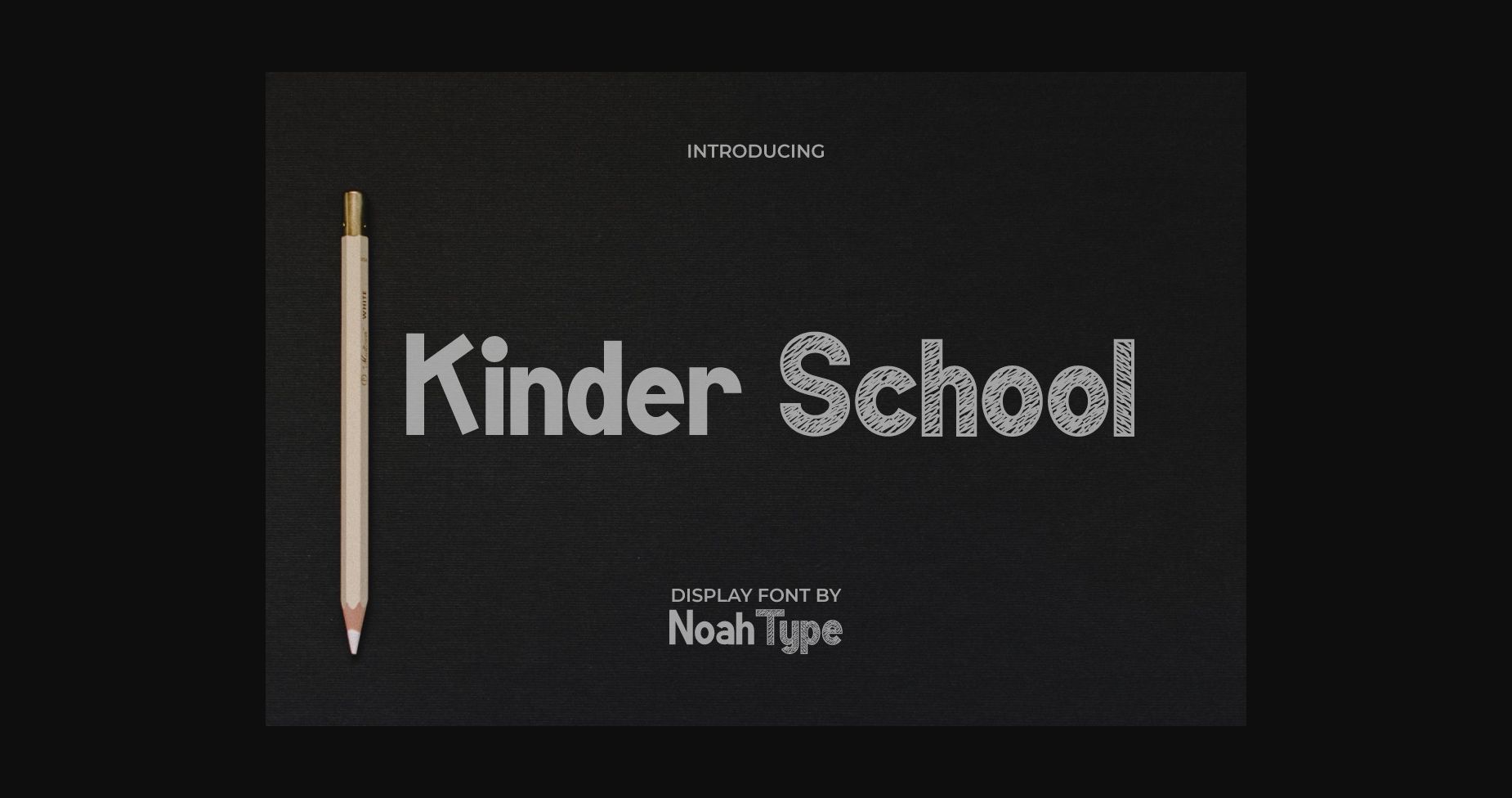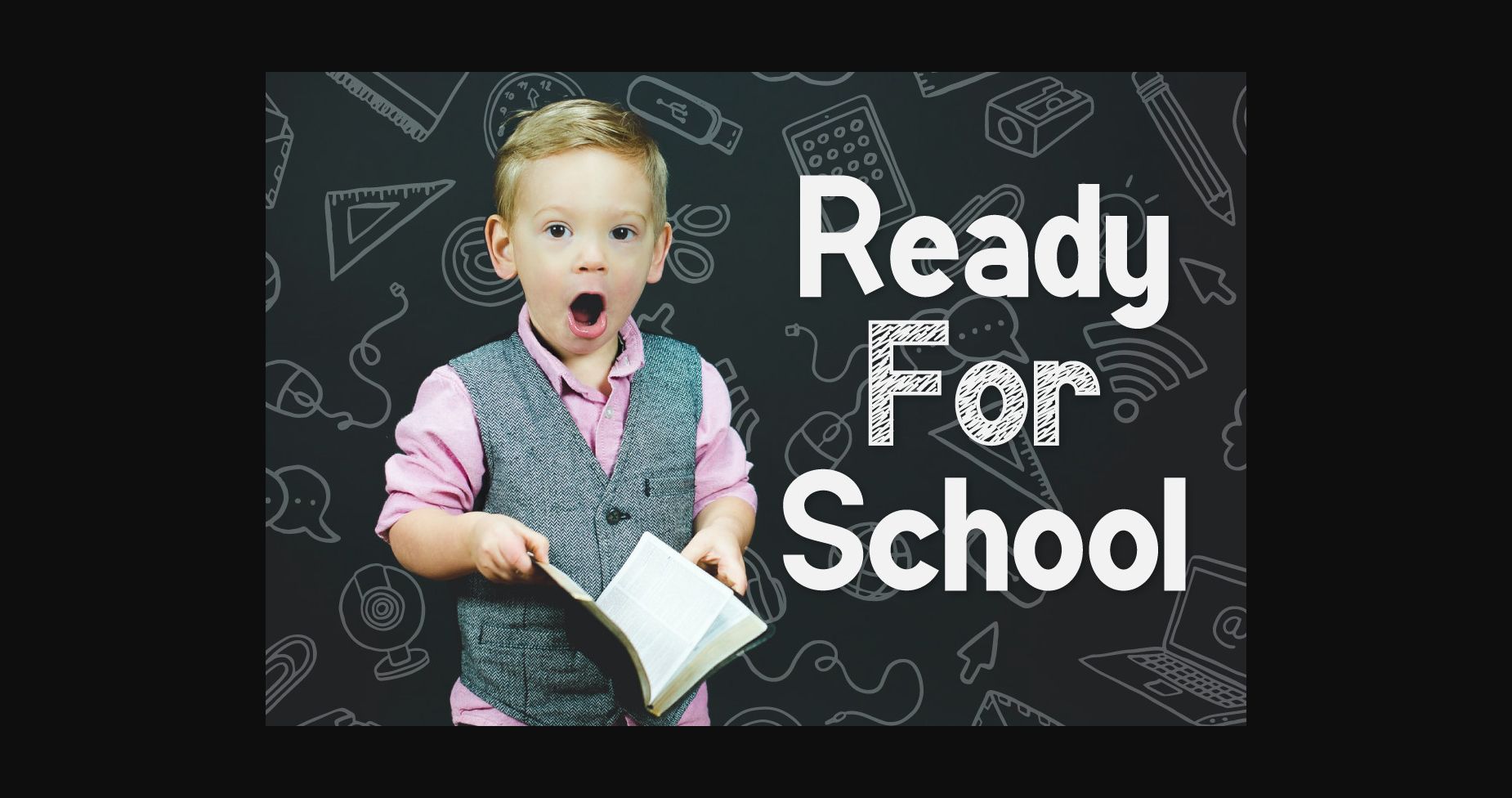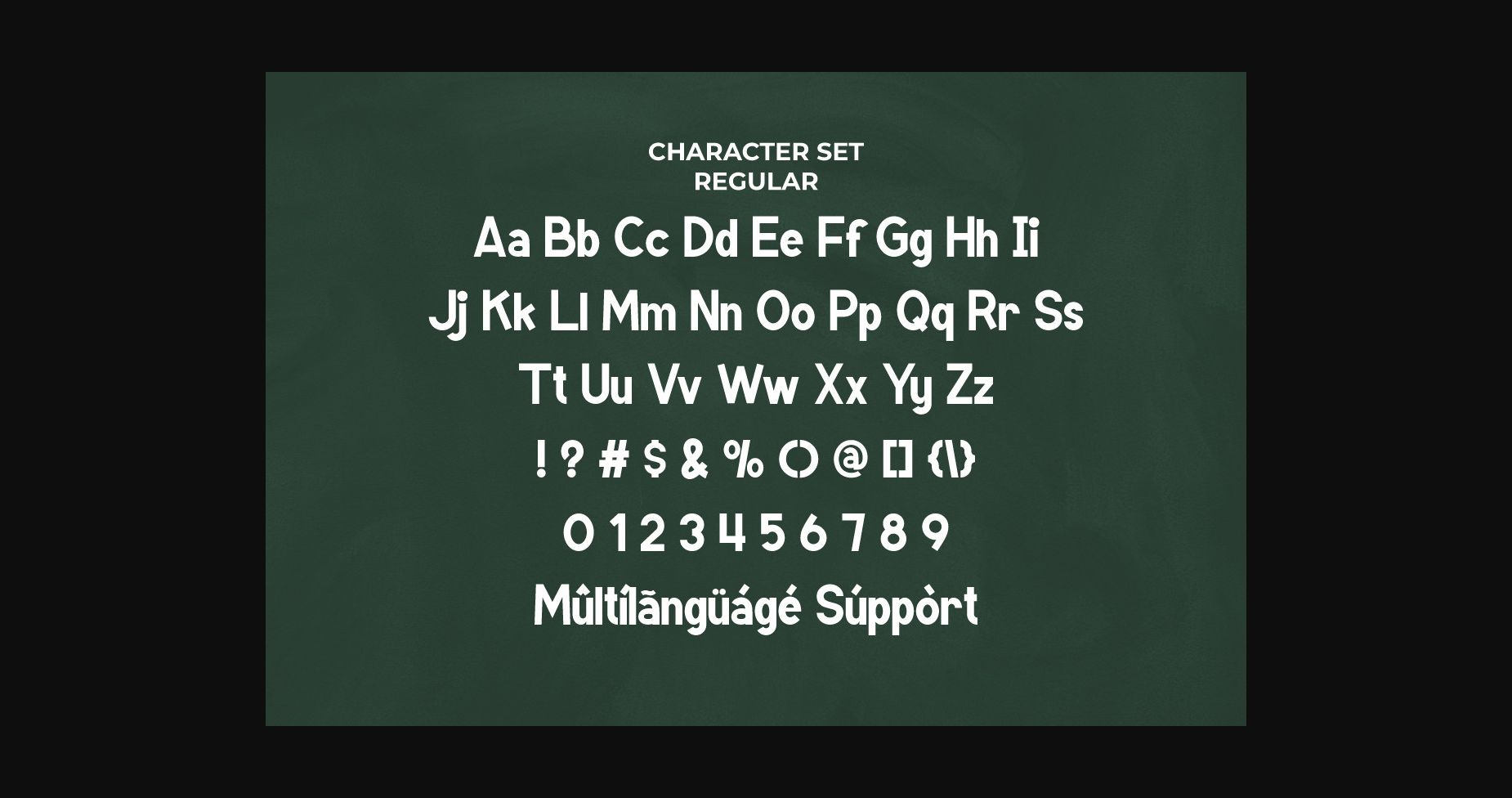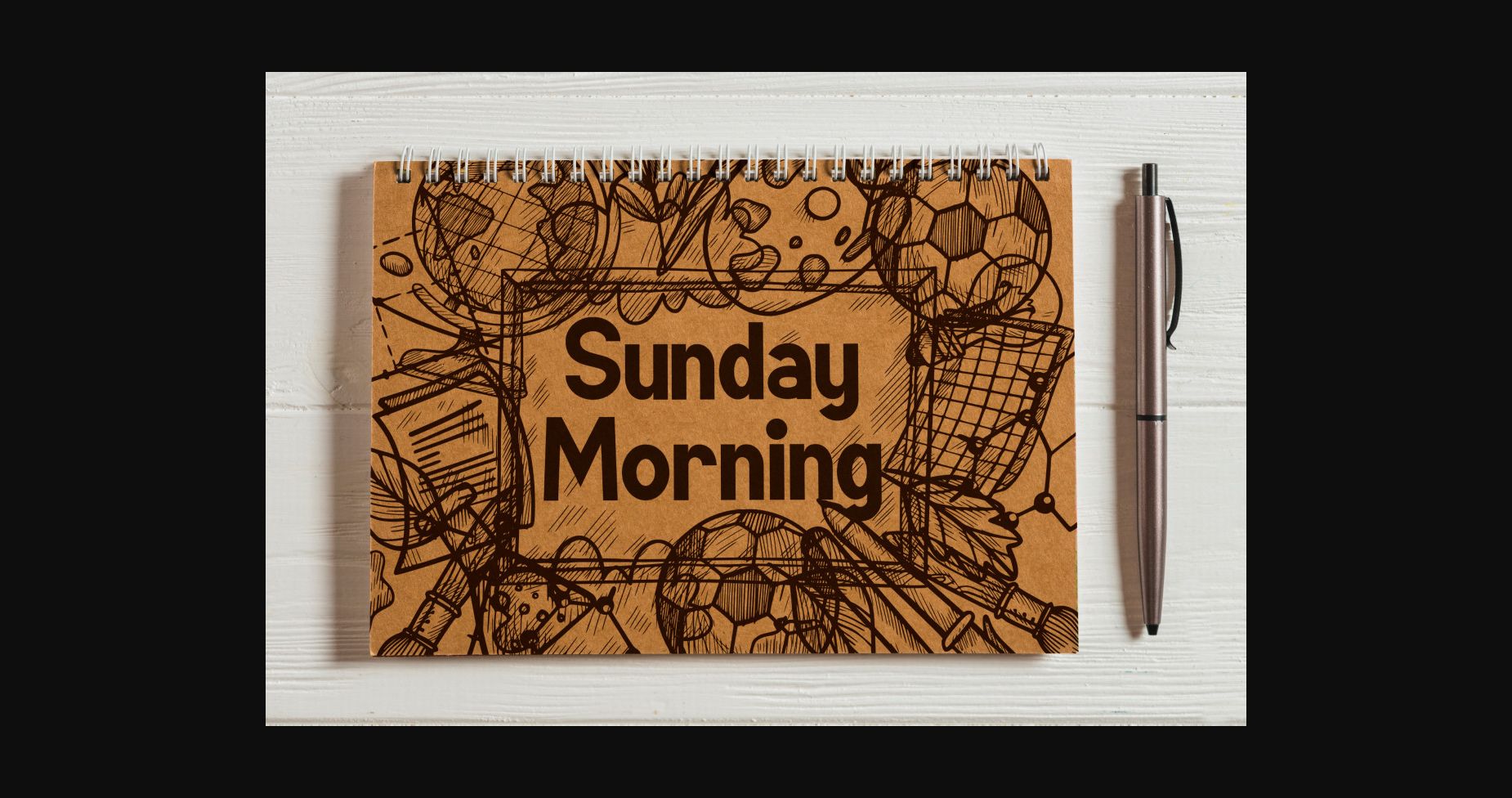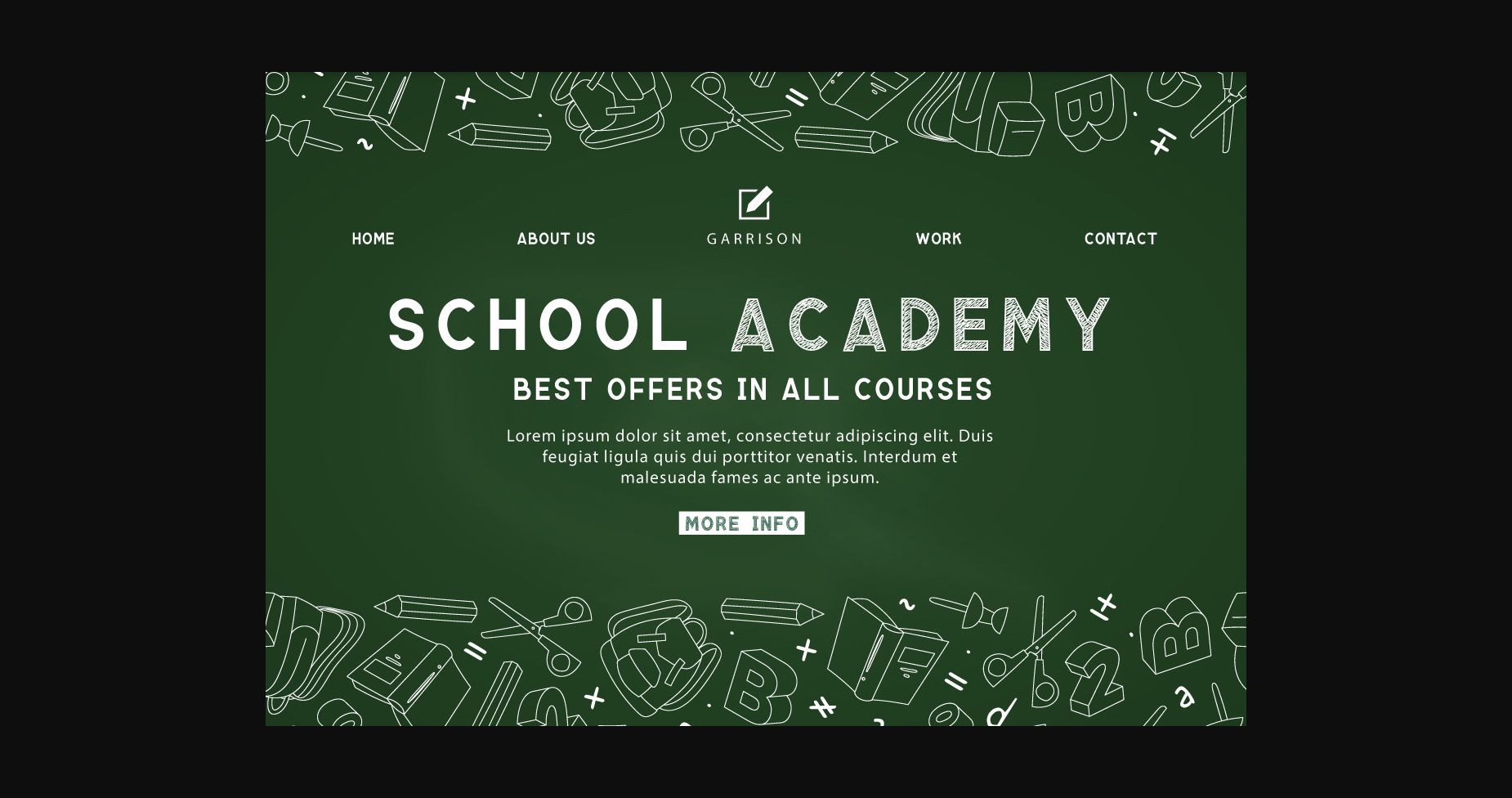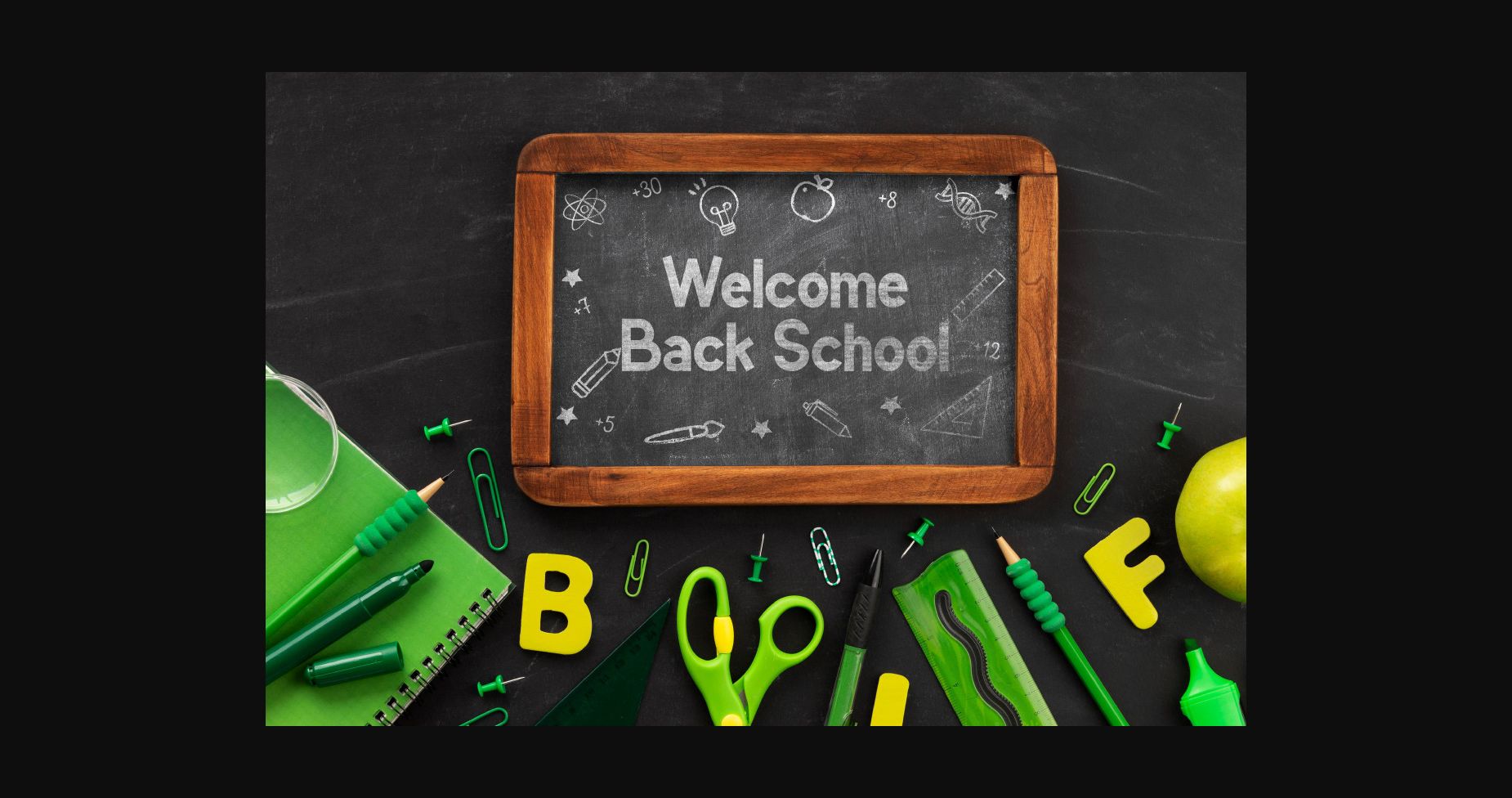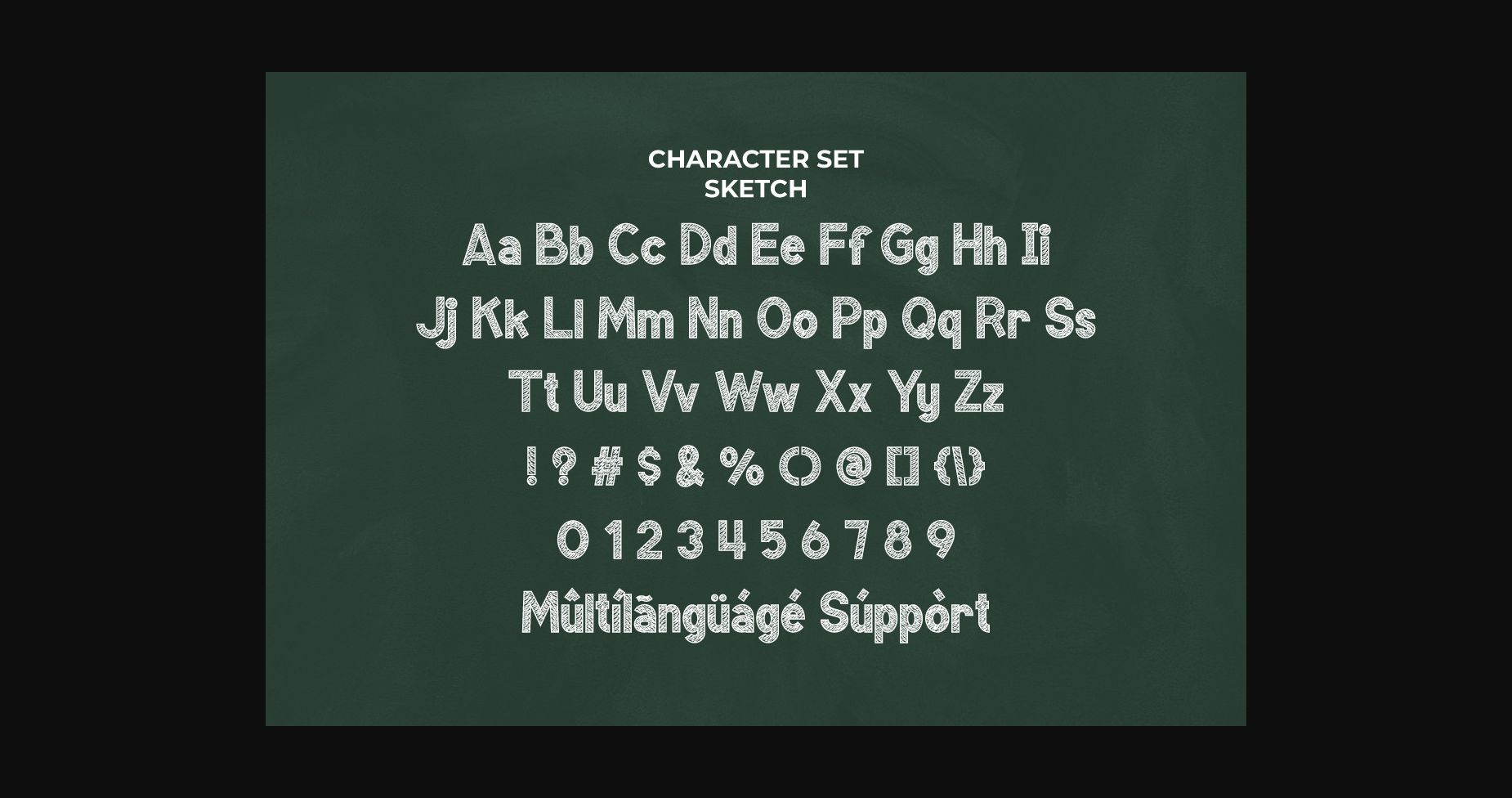
HomeSans Serif FontsKinder School Font Sans Serif Fonts Kinder School Font FacebookXPinterestWhatsApp 1 of 11 ... Kinder School Font Poster 2... Kinder School Font Poster 3... Kinder School Font Poster 4... Kinder School Font Poster 5... Kinder School Font Poster 6... Kinder School Font Poster 7... Kinder School Font Poster 8... Kinder School Font Poster 9... Kinder School Font Poster 10... Kinder School Font Poster 11... About Kinder School Font Kinder School is a cool, bold and neat sans serif font. Add it confidently to your favorite creations and let yourself be amazed by the outcome generated. DOWNLOAD NOW People also explored Hestika Font Shaynee Font Rain Font Sebitang Font Cute Nails Font Sweet Butter Font Badjigoer Font Flower Power Font Penny Arcade 326 0 TagsKinder School Font Previous articleBrockheart FontNext articleChamiaa Font LEAVE A REPLY Cancel reply Comment: Please enter your comment! Name:* Please enter your name here Email:* You have entered an incorrect email address! Please enter your email address here Website: Save my name, email, and website in this browser for the next time I comment. Personal Use Free Winter Soldier Personal Use Free Read more about this font Rakesly Personal Use Free Read more about this font Whoa Personal Use Free Read more about this font Groomer Personal Use Free Read more about this font BLOG Free vs Paid Fonts: Why Investing in Premium Fonts Is Worth It Free vs Paid Fonts: Why Premium Fonts Are Worth It in 2025 The debate of free vs paid fonts continues in the design world. While... Where to Buy American Fonts Online in 2024 5 Fonts That Will Dominate Design Trends in 2026 Fonts That Capture the Spirit of New York City